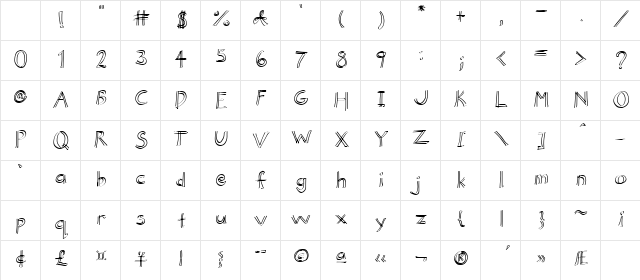
Butterfly Comic Logo has an approachable, lighthearted character - its loose, expressive forms are well-suited to children's content, casual branding, and fun-first design.
Font Pairing: Pairs well with a rounded or humanist sans for body copy, maintaining the friendly tone without relying on Butterfly Comic Logo to carry extended reading.
Pro Tip: Use Butterfly Comic Logo at larger display sizes where its expressive character can land. Pair with a clean, simple sans for body copy to maintain readability.